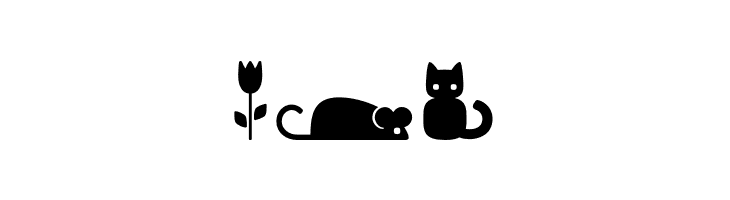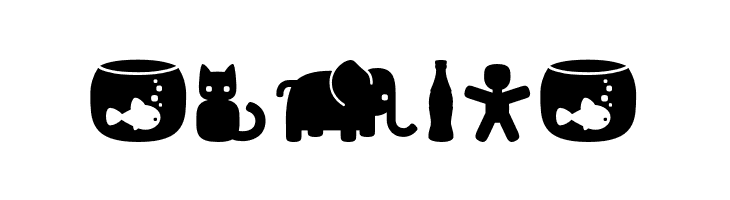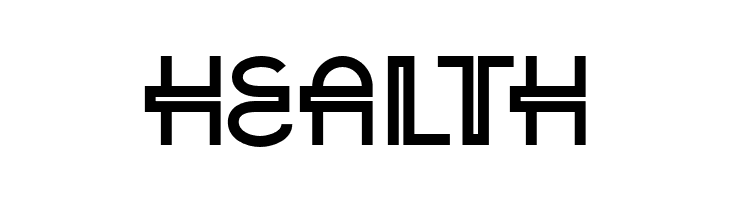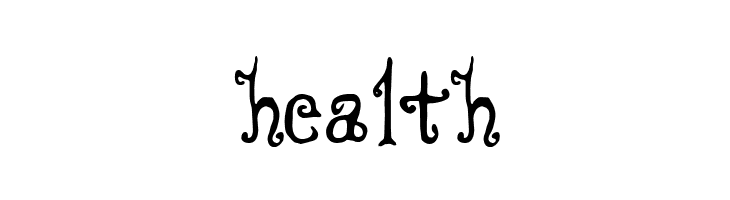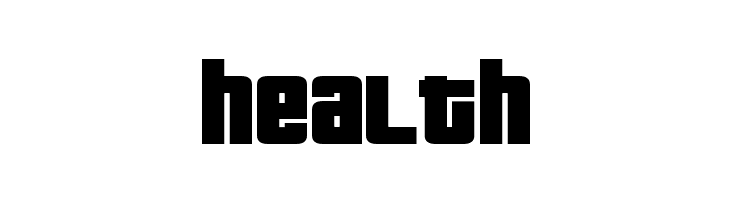
A bold, stencil-style font with thick strokes and rounded edges.
A bold, textured font with a hand-drawn, sketch-like appearance.
A whimsical and decorative font with playful, curly letterforms.
A bold, geometric font with a retro vibe, perfect for impactful designs.
A casual, handwritten font with a playful and informal style.
A bold, rounded dingbat font with diverse pictograms and playful shapes.
A bold, geometric font with playful and dynamic character shapes.
A bold, geometric font with a futuristic and modern design.
A bold, 3D font with a filled interior and striking outline, perfect for dynamic designs.
A bold, angular font with a geometric and modern style.